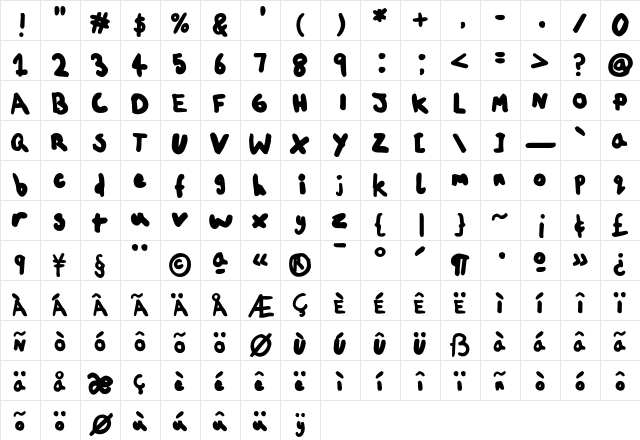
ChildsPlay AgeTen
Design Context for ChildsPlay Typeface
ChildsPlay trades formality for fun, with bouncy, characterful letterforms that bring warmth and energy to any project.
Well-suited to food and beverage brands with personality, educational materials, and fun-forward identities.
Font Pairing: Pairs well with a rounded or humanist sans for body copy, maintaining the friendly tone without relying on ChildsPlay to carry extended reading.
Pro Tip: Use ChildsPlay at larger display sizes where its expressive character can land. Pair with a clean, simple sans for body copy to maintain readability.